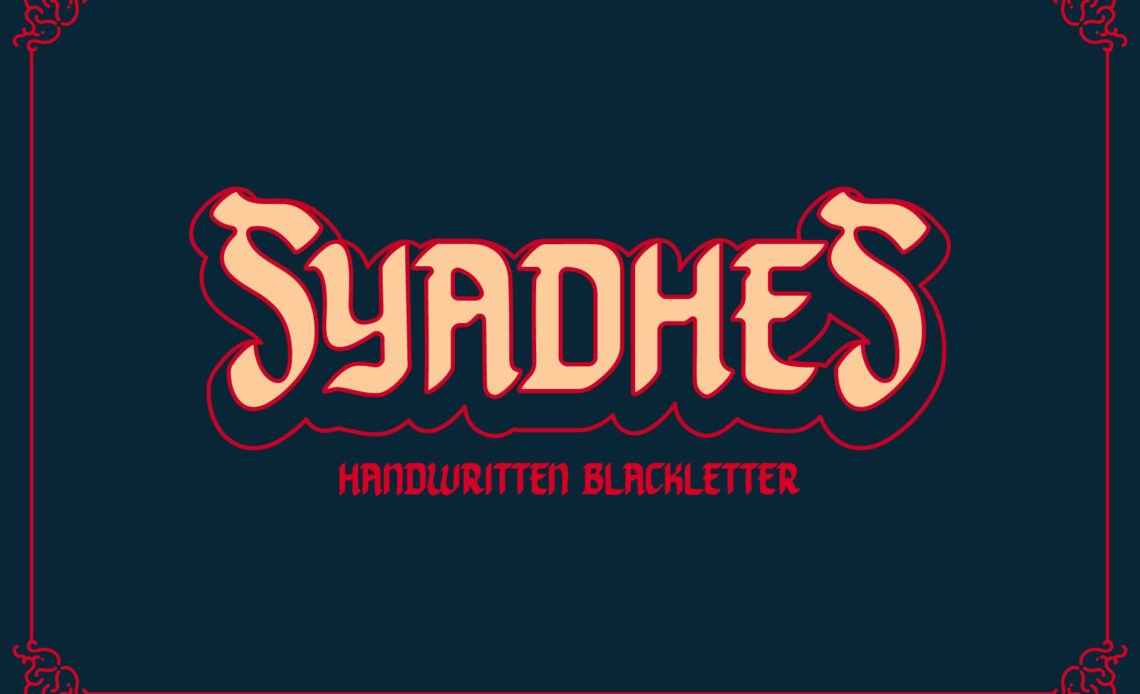
In a world where fonts hold the power to captivate and convey, there lies a masterpiece known as Syadhes Font, an exquisite creation that dances across the digital realm with its mesmerizing Blackletter elegance. Each stroke, every curve, and every twist of this font is an artistic symphony, a visual treat that beckons you to explore the boundless realms of creativity.
Step into a realm of visual enchantment as you discover the Syadhes Font, meticulously crafted by the artisans at YellowLine. This font is not just a collection of letters and symbols; it's an expression of artistry, a testament to the power of design. Syadhes Font exudes a timeless charm, a harmonious blend of tradition and modernity that elevates any project to new heights.
With its intricate details and sweeping lines, Syadhes Font commands attention wherever it appears. Its Blackletter heritage lends an air of sophistication and intrigue, perfect for logos that demand remembrance, posters that ignite imagination, and letterheads that radiate professionalism. Whether you're designing a music album cover that echoes the soul of your melodies or creating a brand identity that leaves a lasting impression, Syadhes Font is your trusted companion.
Unleash your creativity and embark on a boundless journey of design possibilities with Syadhes Font. Its extensive character set, encompassing uppercase, lowercase, numbers, and punctuation, ensures versatility and adaptability across a wide range of projects. Let your imagination soar as you craft designs that speak volumes, leaving an unforgettable mark on your audience.
Immerse yourself in the enchanting world of Syadhes Font, where every letter tells a story and every word paints a picture. Its timeless beauty transcends trends, making it an enduring choice for designers seeking excellence. Experience the transformative power of Syadhes Font and watch your creative visions come to life with breathtaking elegance.